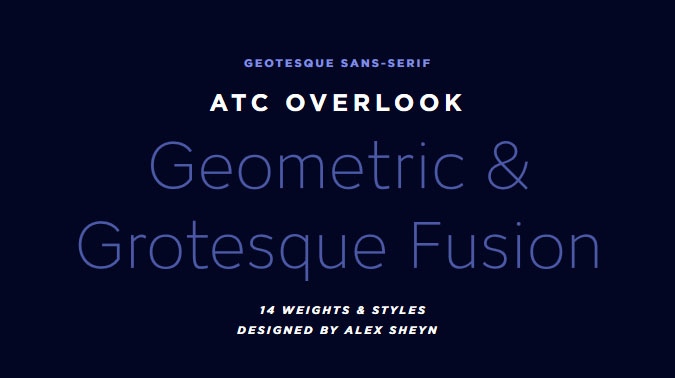
ATC Overlook Font
ATC Overlook Font is perfect for aviation industry communications, air traffic control documentation, airport signage systems, flight training materials, aviation safety presentations, airline corporate branding, aerospace technical manuals, pilot certification programs, aircraft maintenance guides, aviation museum displays, flight simulator interfaces, and professional projects that require precise, aviation-focused typography with aeronautical authority and technical clarity.
What makes ATC Overlook Font so exciting is its aviation precision and aeronautical authority that embodies the critical safety standards and technical excellence required in aviation communications and air traffic control systems. This typeface features clean, highly legible letterforms with aviation-grade clarity and systematic proportions that ensure optimal readability in mission-critical flight operations and technical documentation. The font's aviation character and professional appeal make it perfect for aerospace organizations and aviation professionals who need typography that meets the exacting standards of flight safety and aeronautical communication protocols.
ATC Overlook Font typically comes in multiple weights and styles including Light, Regular, Medium, Bold, and Black variations. Many versions also include aviation symbols, technical ornaments, and aeronautical decorative elements that enhance the font's aviation functionality and provide designers with comprehensive tools for creating professional, flight-grade typography compositions that meet aviation industry standards.
Achieve flight-grade precision with the aeronautical excellence of ATC Overlook Font Free Download. This aviation-focused typeface brings together air traffic control standards with contemporary design functionality, making it an essential tool for aviation professionals and aerospace organizations that need to create memorable, safety-compliant communications that resonate with pilots and aviation personnel who demand absolute clarity in flight-critical information. The font's aviation character ensures your aeronautical projects will convey professional authority and technical precision.
Whether you're designing aviation training materials, airport communications, or aerospace documentation, ATC Overlook Font delivers exceptional aviation authenticity and technical clarity that connects with aviation professionals who require the highest standards of communication precision and flight safety protocols. Its systematic, highly legible appearance works exceptionally well in both technical documentation and contemporary aviation applications, maintaining flight-grade clarity across all aeronautical contexts.
The precisely engineered letterforms of ATC Overlook Font showcase the ultimate expression of aviation typography and aeronautical design principles. Each character has been optimized for maximum legibility in aviation environments while maintaining the systematic consistency that flight safety demands, making it particularly valuable for aviation communications where typography must support critical decision-making and ensure absolute clarity in flight operations.